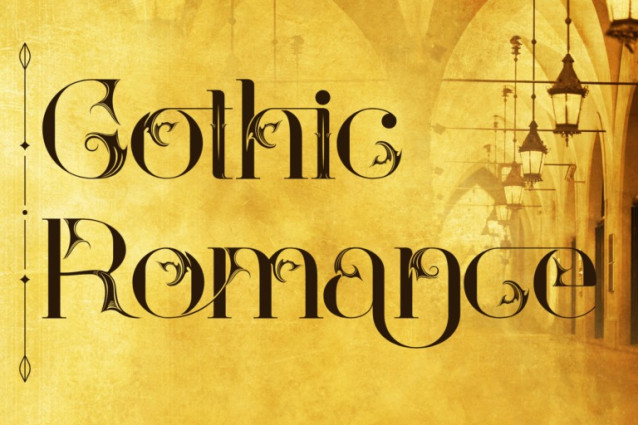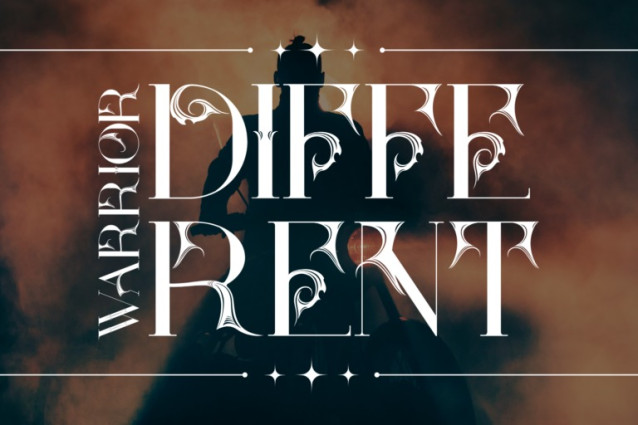
Aesthetic Harmony Font
Aesthetic Harmony – Gothic Font is an elegant serif display font that harmonizes ornamental beauty with bold sophistication. Each character is meticulously sculpted with delicate floral swashes and pointed terminals, evoking the feeling of antique luxury, dramatic poise, and romantic gothic flair.
This font is perfect for editorial design, fashion branding, luxury packaging, wedding invitations, and artistic posters. Its high contrast strokes and organic decorative elements make it an unforgettable choice for designs that crave visual drama with refined control.
Font Features:
Uppercase & Lowercase Letters
~100 Refined Ligatures
Stylish alternates and ornamental glyphs for added versatility
About 100 ligatures combined with Stylistic Alternates Font: